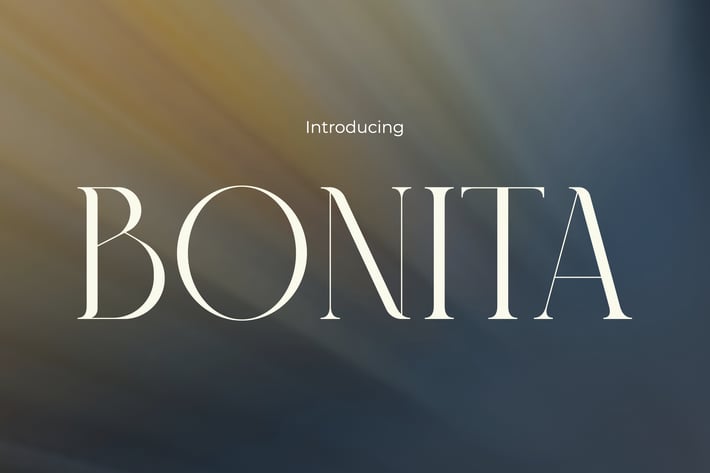
Bonita - Sleek Elegance Modern Font
Bonita - Luxury Display Fonts
Elegant editorial display font with high-contrast strokes and a timeless luxury appeal. BONITA blends sophisticated curves and slender letterforms with a striking contrast, creating a graceful yet bold aesthetic. Its refined, feminine energy fits beautifully within luxury brand storytelling and romantic visual narratives. From sharp terminals to its airy spacing, every character is crafted to turn heads—ideal for upscale markets like fashion, bridal, and beauty.
BONITA is your go-to font for crafting emotionally resonant branding, luxury packaging, and visually rich editorial layouts. Whether you're designing a wedding invitation suite, a fashion-forward logo, or social media templates for beauty influencers, BONITA’s style elevates your work with instant sophistication. It speaks to dreamers, romantics, and modern brands alike—inviting the viewer in with poise and presence.
Key Features :
Elegant Letterform Design
- High contrast strokes and tall x-height for a luxury impression
- Clean serif details with subtle feminine touches
Perfect for:
- Branding and visual identity
- Wedding designs and event stationery
- Editorial spreads and lookbooks
- Instagram content, moodboards, and logos
Stylistic Edge
- Ideal for designs that demand attention and elegance in equal measure
- Supports emotional storytelling through shape and rhythm